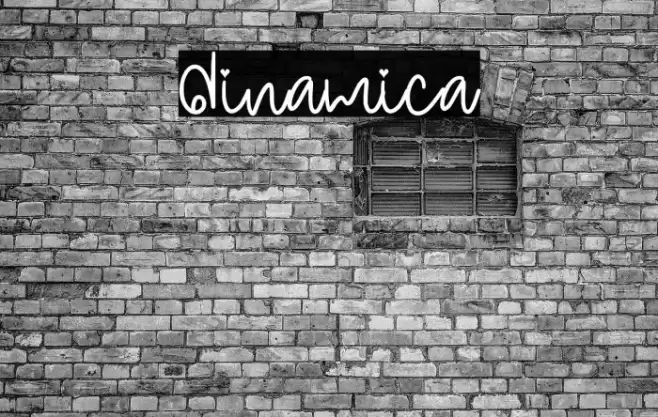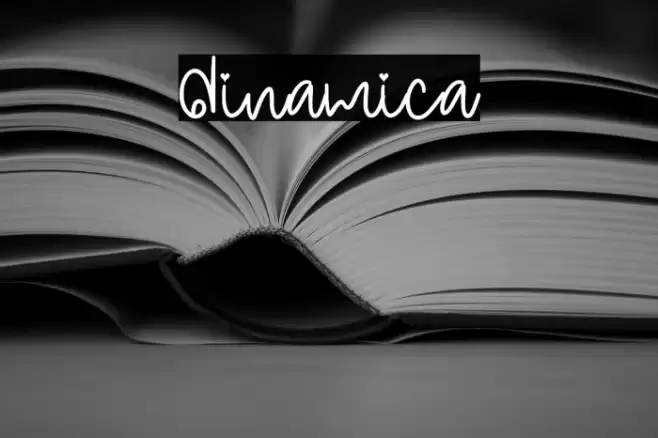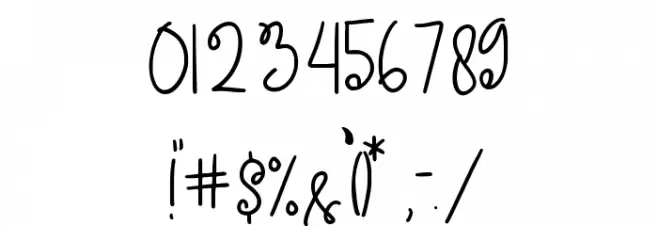
Dinamica Font
Dinamica Description
This font features a playful and dynamic handwritten style, characterized by its fluid and slightly irregular strokes. The letters have a whimsical quality, with some characters exhibiting unique loops and curves that add to its charm. The uppercase letters are bold and expressive, while the lowercase letters maintain a consistent flow, enhancing readability. The numerals and special characters are crafted with the same lively spirit, making them suitable for creative and informal designs. Overall, this font exudes a sense of fun and spontaneity, perfect for projects that require a personal touch.
A playful, dynamic handwritten font with fluid, whimsical strokes from Regular fonts.
- Proposed Projects: Ideal for greeting cards, invitations, children's books, and playful branding projects.
- Overall Style: Playful, Whimsical
- Use Case: Logos, Invitations, Greeting Cards